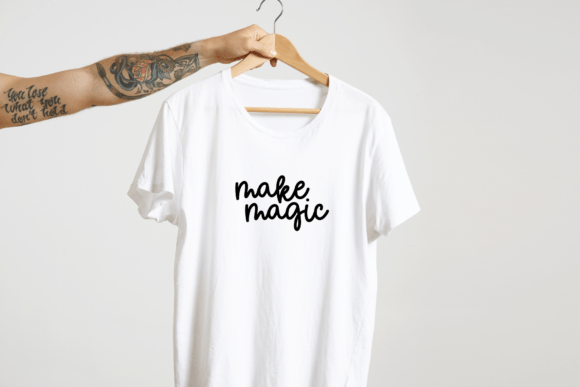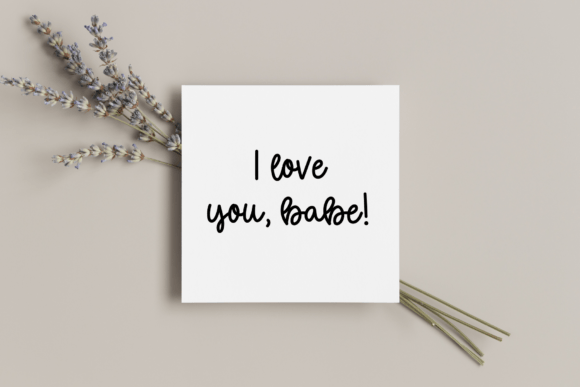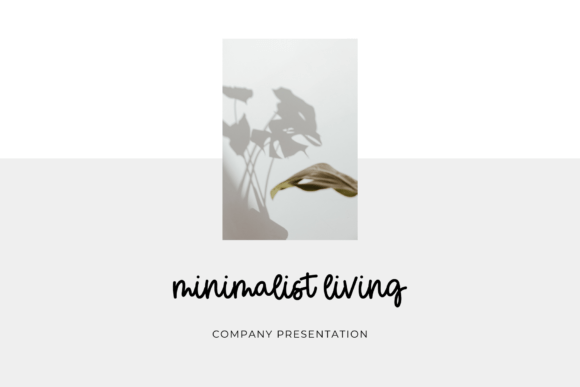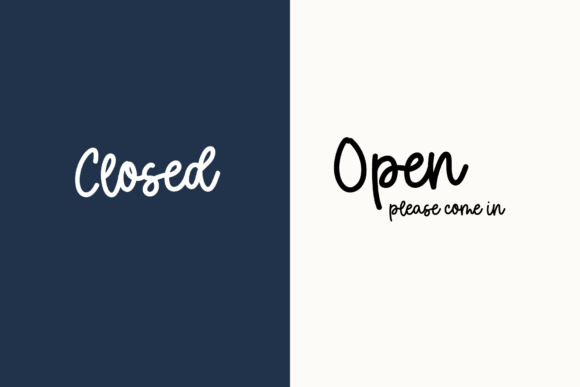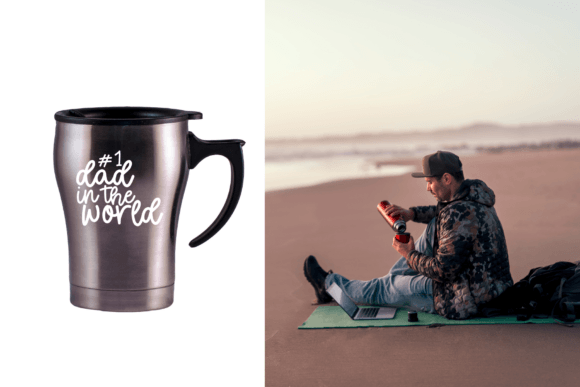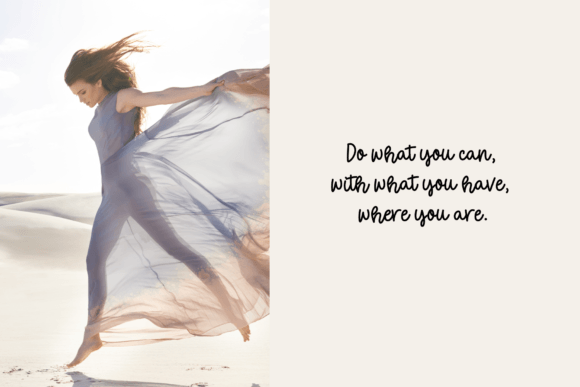
Steep Yourself in Creativity with the Bubble Tea Font
As I sat in my cozy coffee shop, surrounded by the gentle hum of laptops and the soft chatter of creatives, I stumbled upon a moment of pure inspiration. The delicate script on a friend’s business card caught my eye, and I couldn’t help but feel a rush of excitement. It was as if the perfect font had finally been found to match the warmth and personality of the brand.
That moment sparked a journey to discover the perfect script font – and I’m thrilled to introduce you to the Bubble Tea Font. This beautiful, handcrafted font adds a unique touch to any project, from branding and invitations to blogs and planners. With its elegant, hand-drawn design, the Bubble Tea Font is the perfect addition to any designer’s toolkit.
Whether you’re a seasoned pro or a creative newbie, the Bubble Tea Font is a valuable asset to have in your arsenal. Its authentic hand-lettered touch is easy to incorporate into your projects, making it a must-have for anyone looking to add a personal touch to their work.
Bubble Tea Font Key Features
- Font Family: Bubble Tea Font is a unique, hand-drawn font family designed to resemble the playful and whimsical nature of bubble tea.
- Character Count: The font family includes over 800 glyphs, including letters, numbers, punctuation marks, and special characters.
- Size: The font family comes in four different font sizes: Bubble Tea, Bubble Tea Extra Bold, and Bubble Tea Extra Bold Italic.
- Unique Characteristics: The font features a distinctive, hand-drawn style with subtle imperfections, giving it a charming and authentic feel.
Bubble Tea Font Review
I recently had the chance to work with the Bubble Tea Font, and I must say it’s a unique and eye-catching choice for any design project. ✨ One of the things that stood out to me was the font’s playful and modern feel, which is perfect for capturing the fun and lively atmosphere of a bubble tea shop.
- ✨ Unique character set: The font includes a range of characters that are specifically designed to resemble the bubbles and tea cups often associated with bubble tea.
- ✨ Modern and playful feel: The font’s design is fresh and energetic, making it perfect for brands that want to stand out in a crowded market.
- ✨ Good legibility: The font is easy to read, even at smaller sizes, which is important for digital applications.
- ⚠️ Limited language support: The font only includes characters for a few languages, which may limit its use in international projects.
- ⚠️ Not suitable for formal applications: The font’s playful design may not be suitable for more formal or professional projects, such as business reports or academic papers.
Overall, I think the Bubble Tea Font is a great choice for designers who want to add a bit of fun and personality to their projects. With its unique character set and modern feel, it’s perfect for capturing the spirit of a bubble tea shop or any other brand that wants to stand out in a crowded market.
- Use the font’s unique features, such as the cursive script and bubble-like effects, to create visually appealing text.
- Use the font’s playful and fun style to create engaging headings and titles.
The Bubble Tea Font is perfect for:
- Playful and fun marketing materials
- Wedding invitations and decorations
Q: Can I customize the Bubble Tea Font for my specific design project?